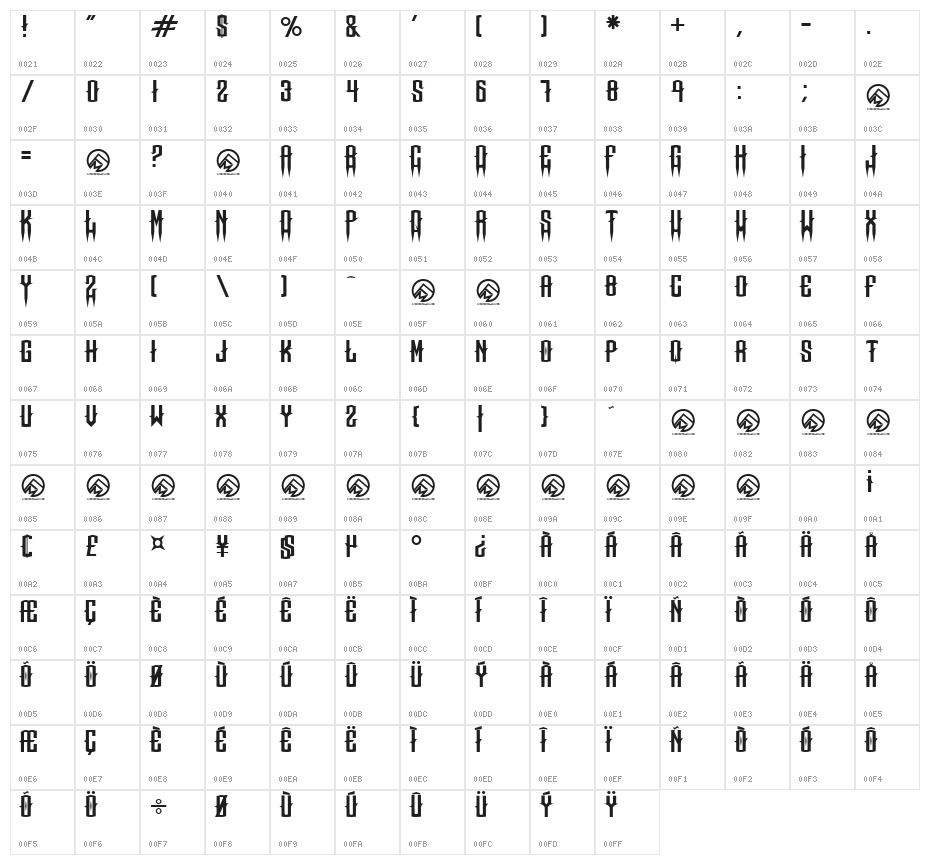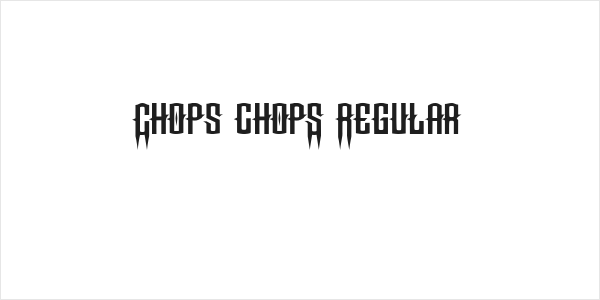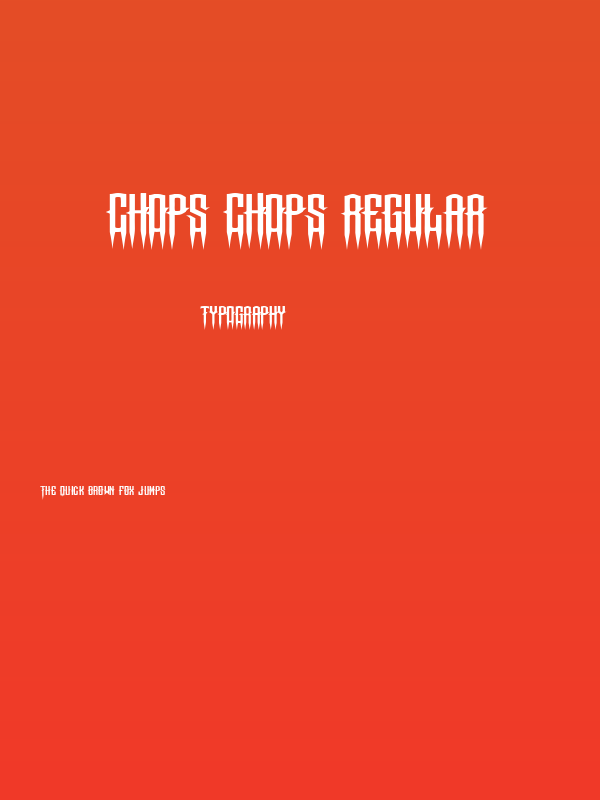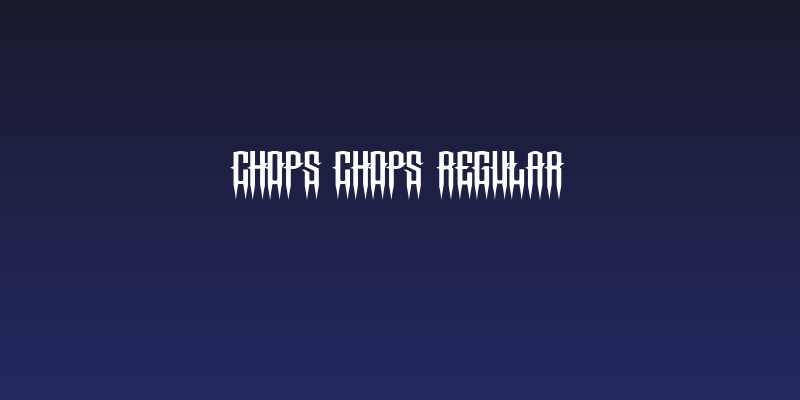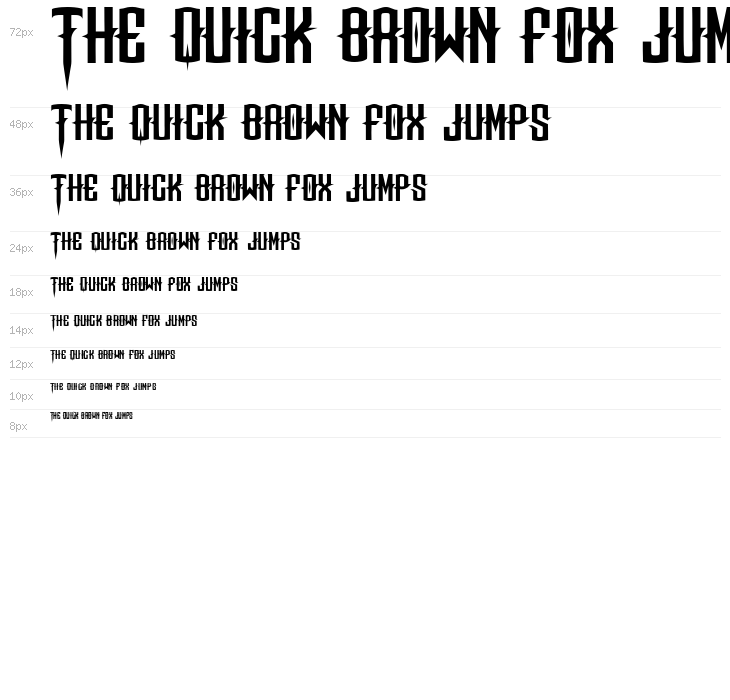
Chops chopS Regular Font
Chops chopS Regular Description
This font features a bold, angular design with sharp, pointed edges that give it a striking and aggressive appearance. The characters are tall and narrow, creating a condensed look that emphasizes verticality. The uppercase letters are particularly distinctive, with exaggerated serifs and a geometric style that adds to the font's dramatic impact. The numbers and special characters maintain the same bold and edgy aesthetic, ensuring consistency across all glyphs. This font is ideal for projects that require a strong visual statement.
| Proposed Projects | Perfect for music album covers, event posters, video game titles, and branding that requires a bold statement. |